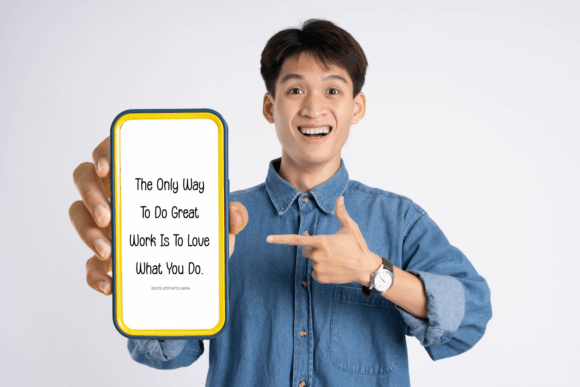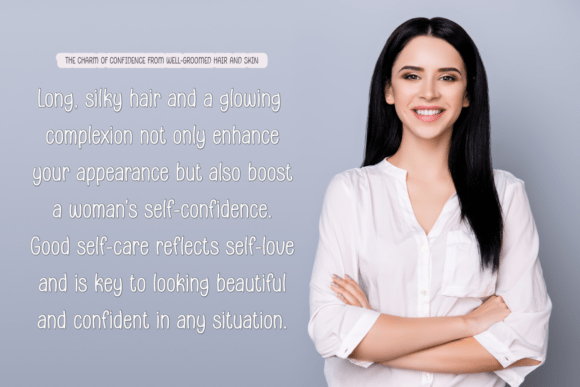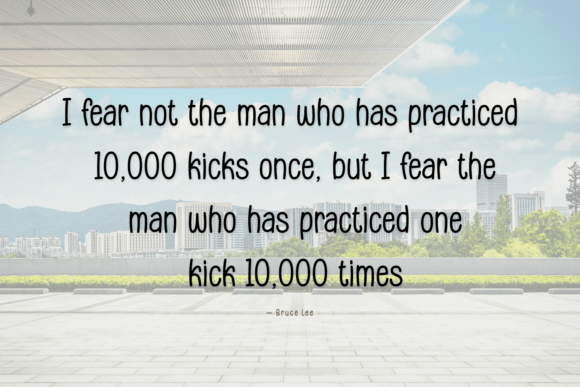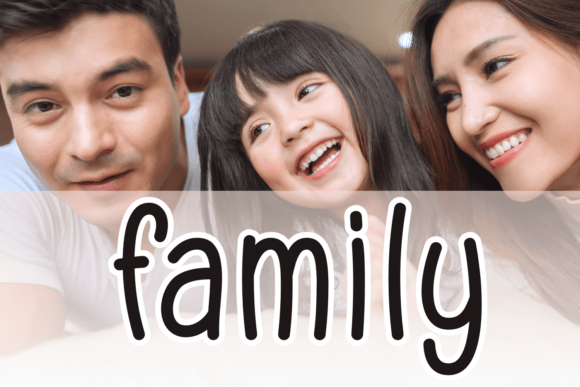
Introduction to Baby Noel Font
Immerse yourself in the captivating charm of the Baby Noel Font .
This font serves as a perfectly motivated blend of feminine elegance and unique style Its sophistication is evident in the artful crafting which touches every print, creating crisp visuals that enhance any medium.